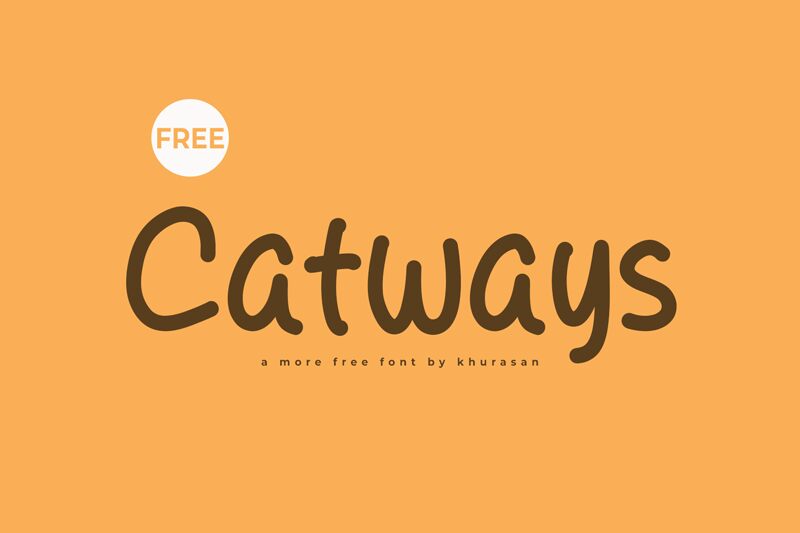
Catways
Catways, designed by Khurasan, is a charismatic handwritten font that exudes a sense of casual elegance. Its semi-light weight provides a delicate touch, making it an excellent choice for projects seeking to convey warmth and approachability. The aesthetic appeal of Catways lies in its fluidity and organic form, reminiscent of fine penmanship.
This font's stylish and personable character makes it versatile for a range of creative endeavors. Whether it's enhancing the intimacy of wedding invitations or adding a personal twist to branding materials, Catways offers designers an authentic handwritten feel that can make any message seem more inviting and heartfelt.